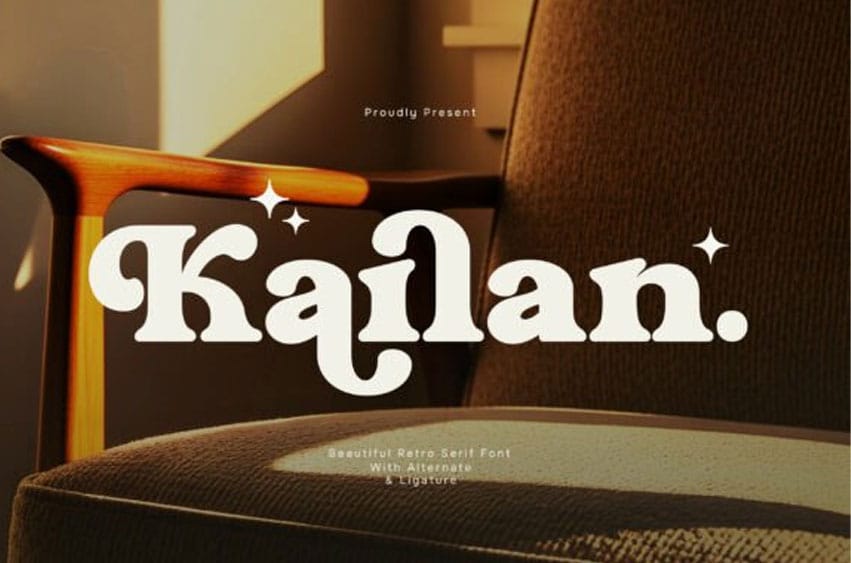
Kailan Font is a beautiful retro serif font that blends vintage charm with a refined modern touch. Inspired by classic typography, Kailan features elegant serifs, smooth curves, and distinctive letterforms that create a warm and nostalgic visual appeal.
Designed to capture attention, this typeface delivers a stylish and expressive look while maintaining clarity and balance. Its retro character brings personality and uniqueness, making every design feel more lively, artistic, and memorable.